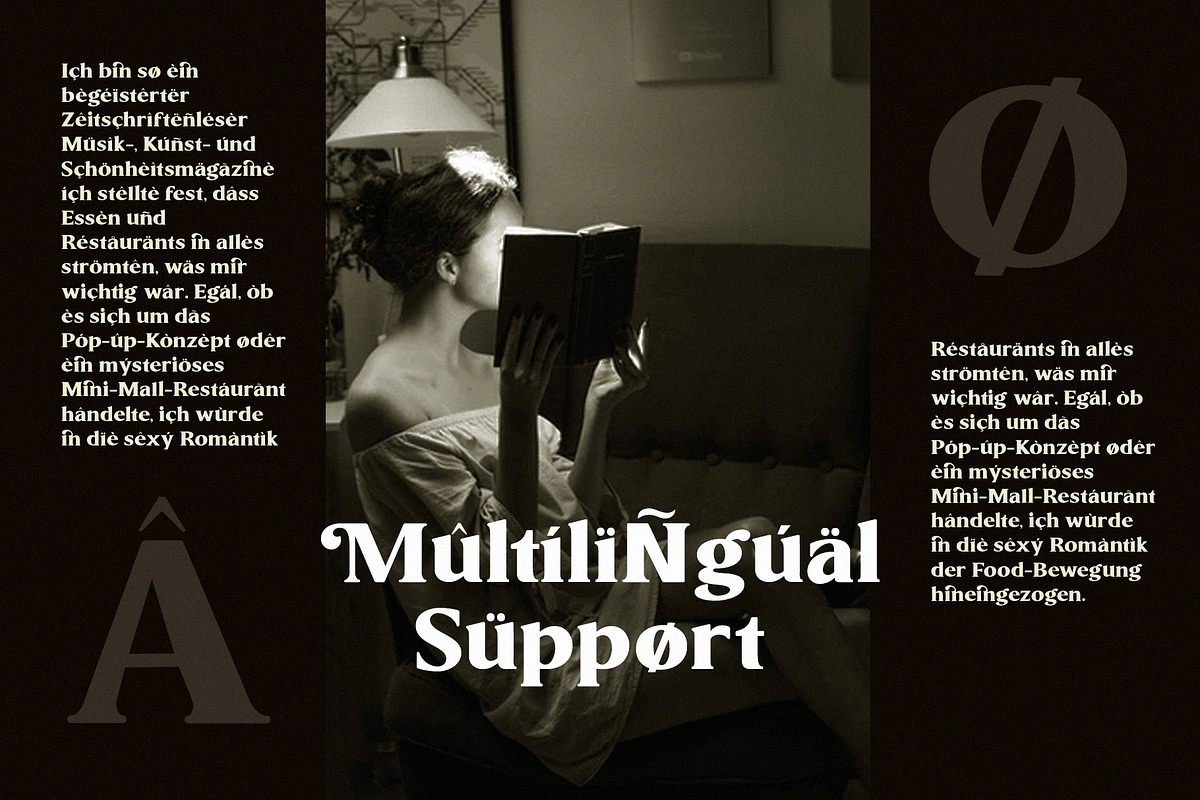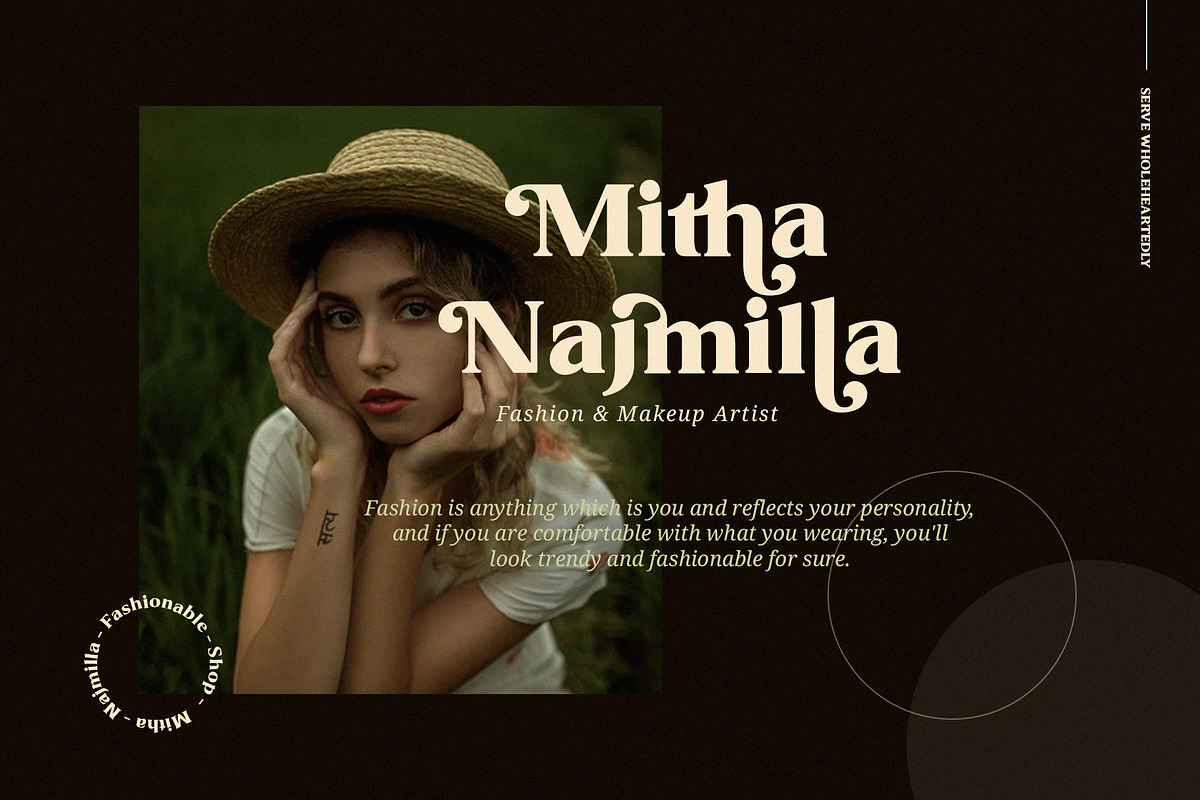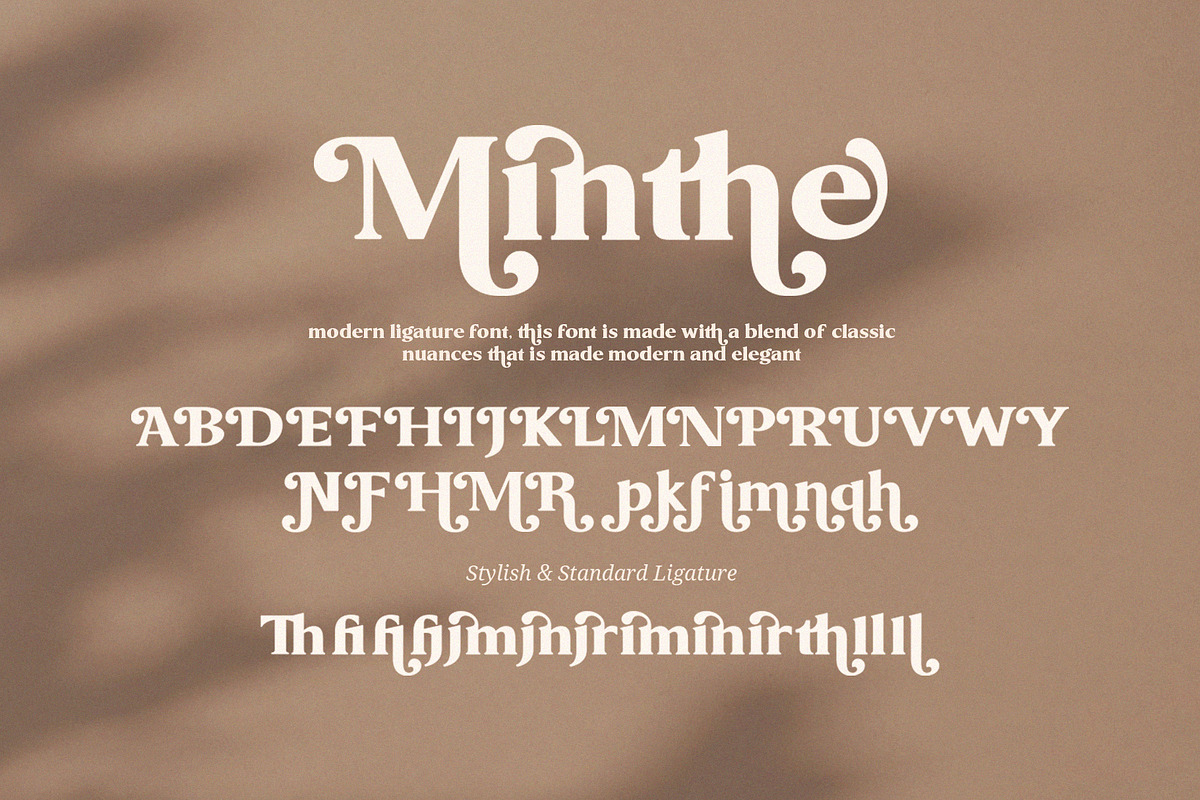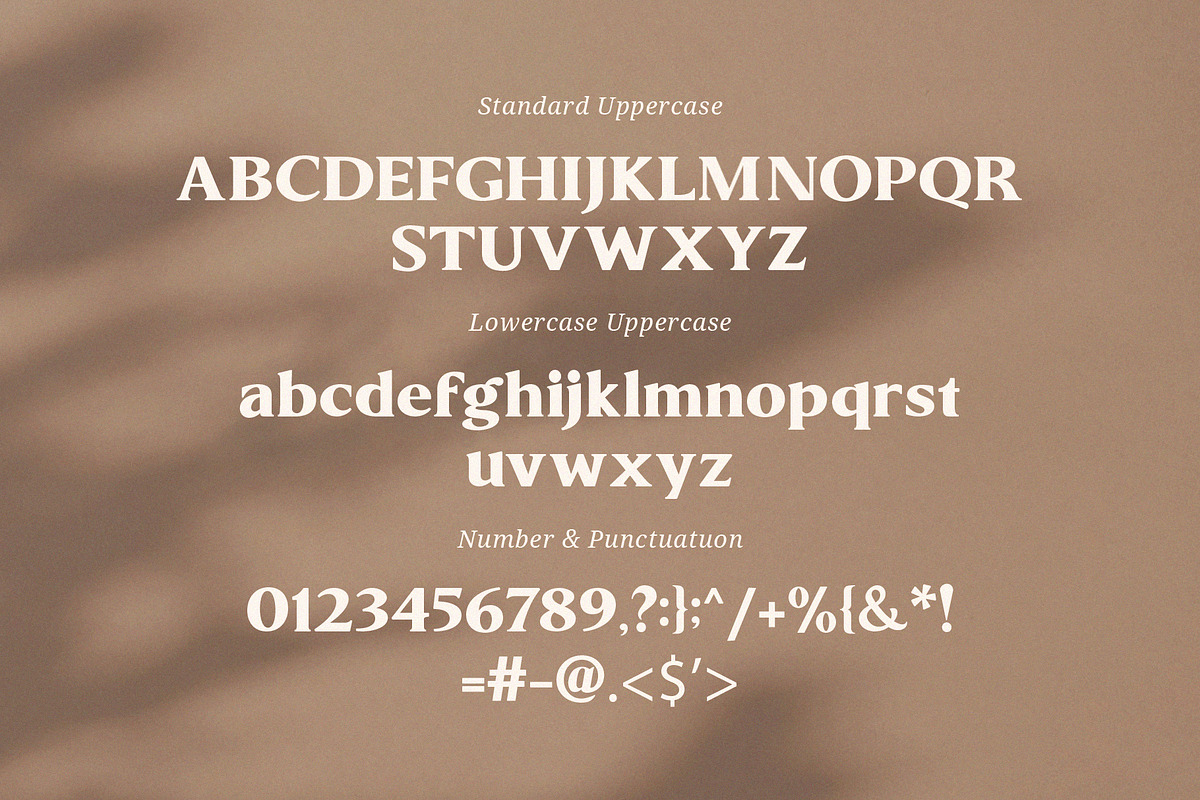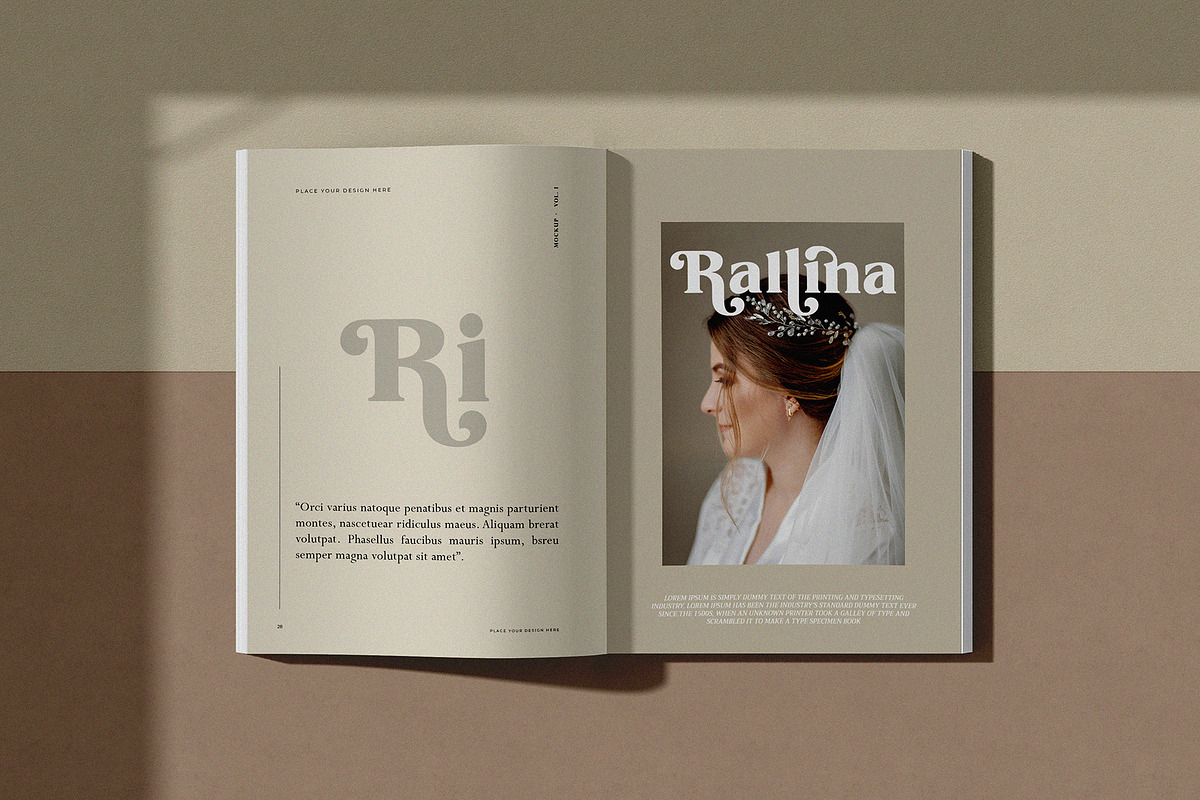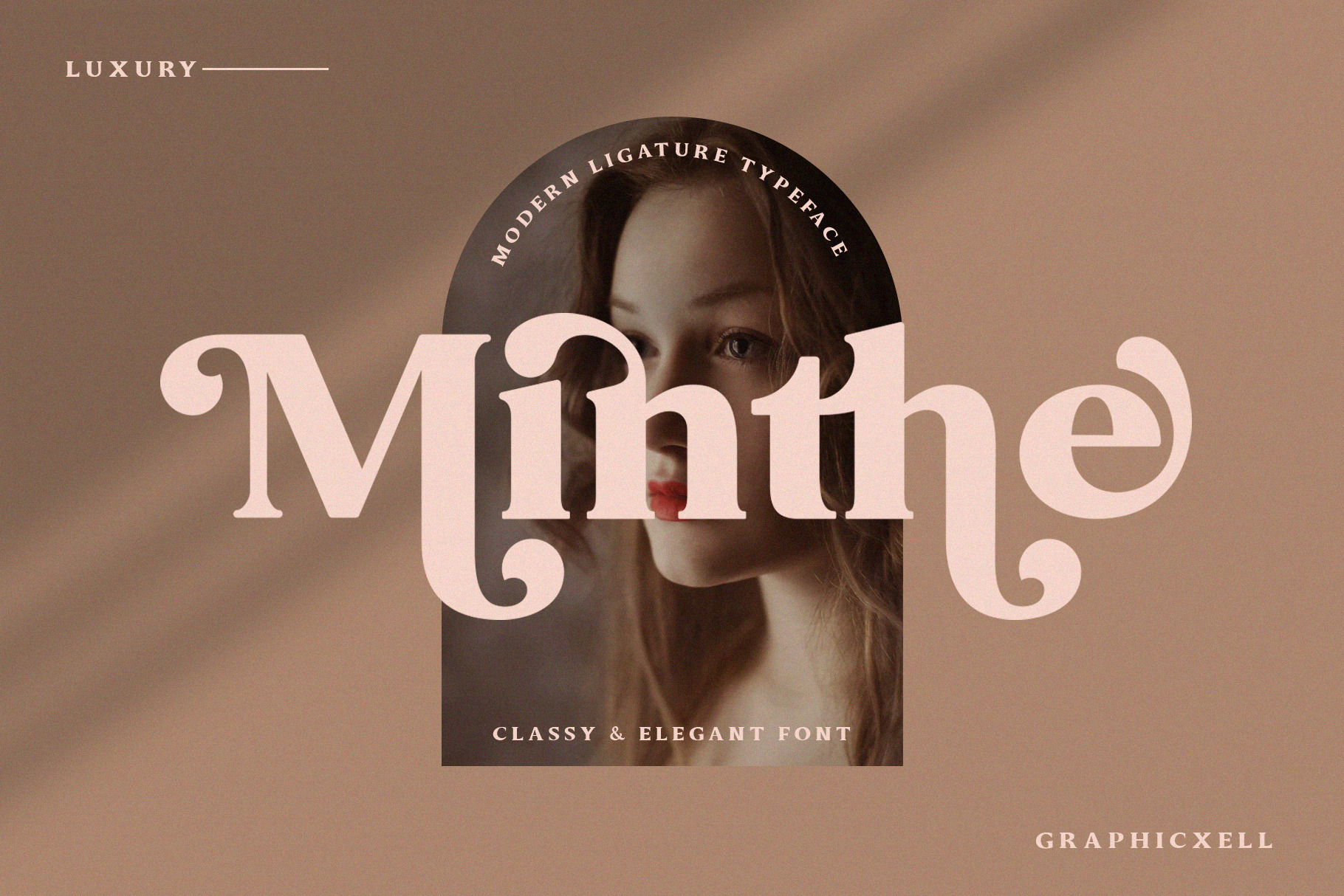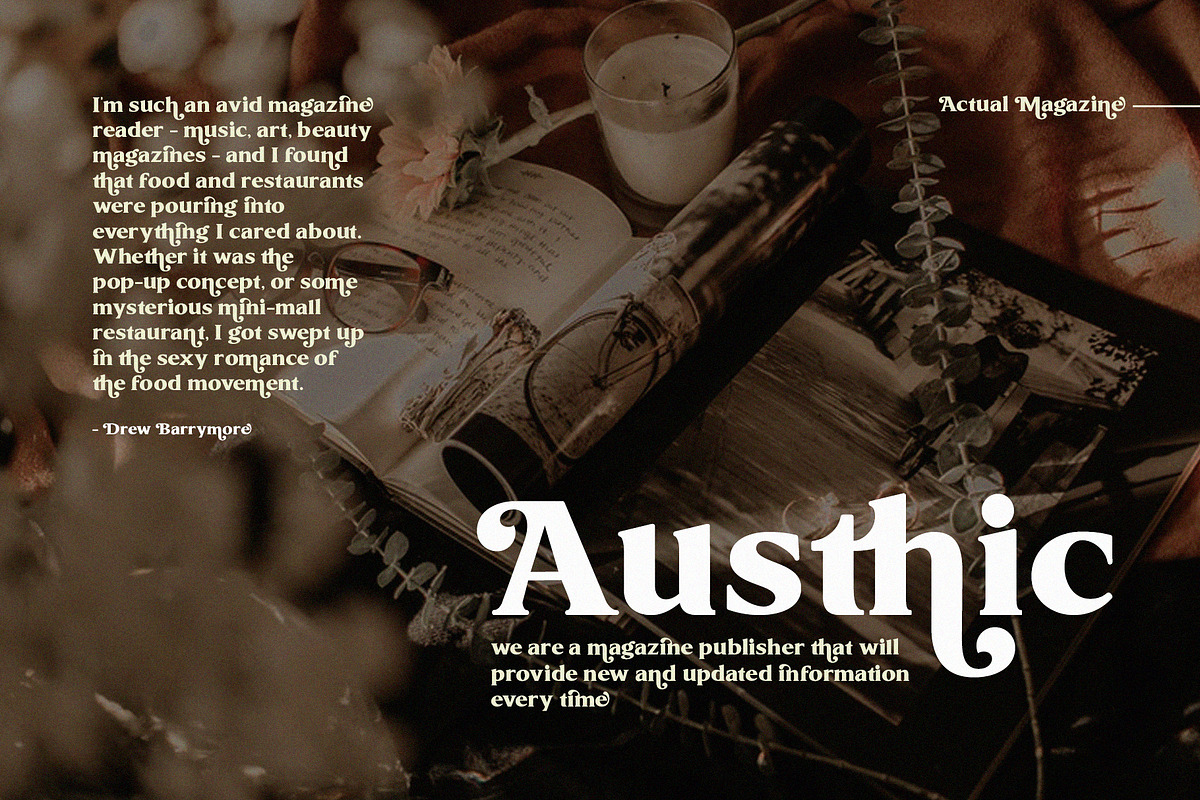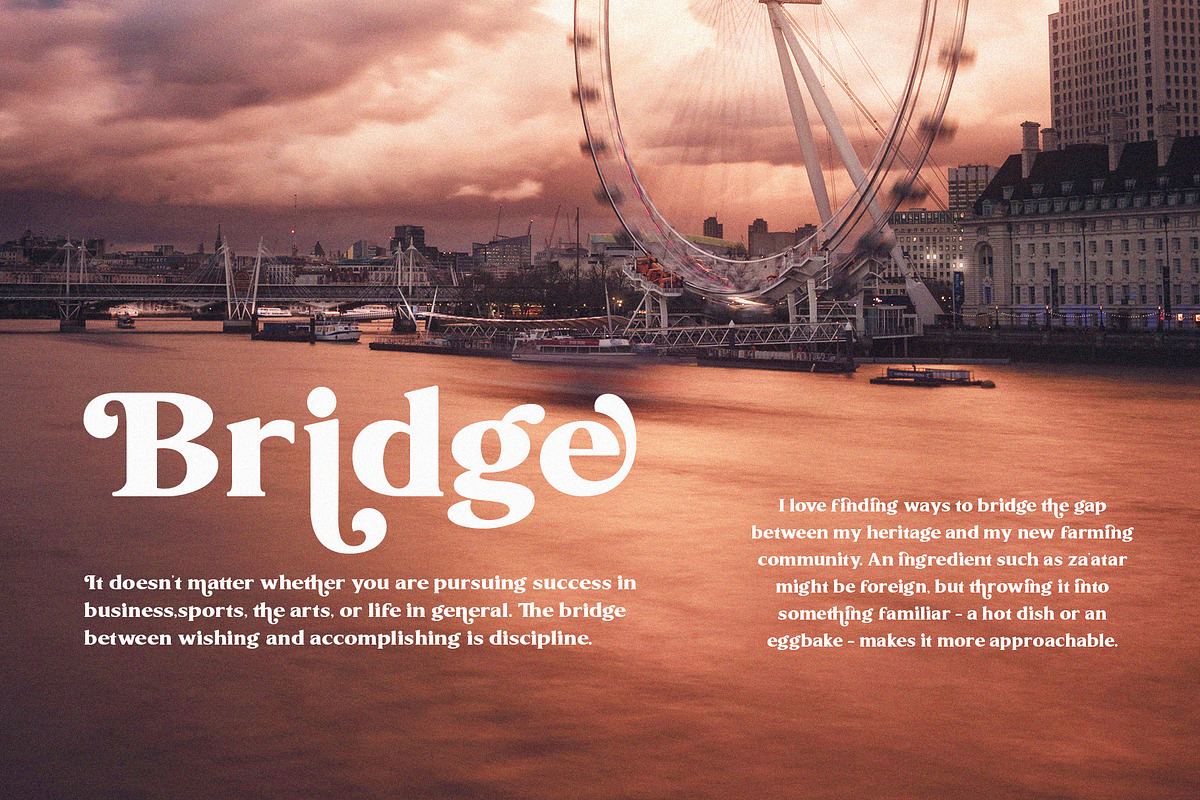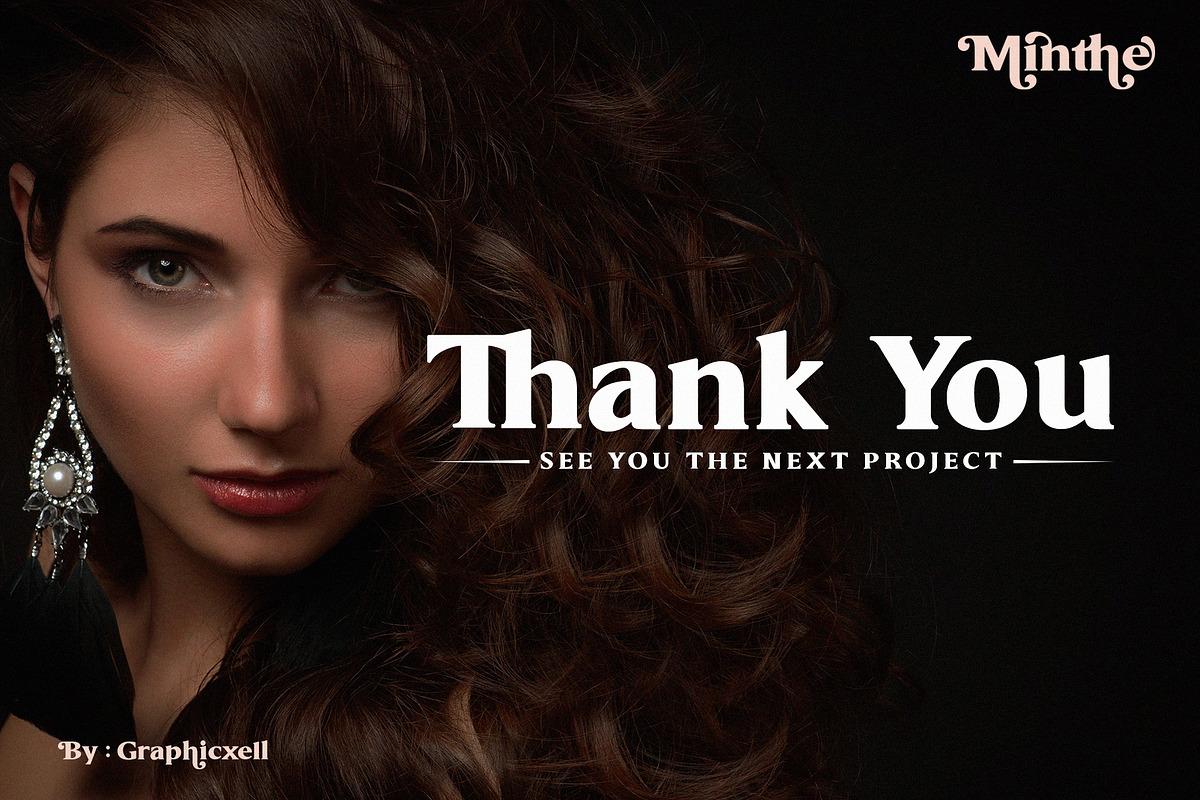
Minthe Elegant Serif Font
Meet Minthe Elegant Serif Font, a fresh and stylish serif font that adds a touch of class to any project. This font is designed with care, featuring balanced letter shapes that make your text easy to read and look beautiful. Whether you are creating logos, branding, websites, magazines, or product packaging, Minthe fits perfectly and helps your designs stand out.
First of all, Minthe includes smooth and functional ligatures. These special letter connections improve the flow of your text and make your designs look more professional. Also, Minthe combines the charm of a classic serif with a modern feel, which makes it great for many uses. For example, you can use it in boutique shops, fashion brands, food packaging, or editorial layouts.
In addition, Minthe is perfect for:
Designing unique and memorable logos
Building strong brand identities
Creating clear and stylish website headers and content
Enhancing magazine pages and editorial work
Beautifying product labels and packaging
Making eye-catching advertisements
Besides its great looks, Minthe works well both in print and on screens. So, whether you are making a poster or a website, this font keeps your message clear and elegant. Moreover, switching from headlines to smaller text is easy and keeps your design consistent.
To sum up, Minthe Elegant Serif Font offers:
A modern serif style with timeless beauty
Balanced letter shapes for better reading
Special ligatures for smooth text flow
Great use for branding, websites, magazines, and packaging
A professional look that grabs attention
If you want to add style and class to your work, Minthe is the right choice. It’s made for designers, marketers, and creators who want their projects to look their best. Try Minthe today and bring your ideas to life with elegance!